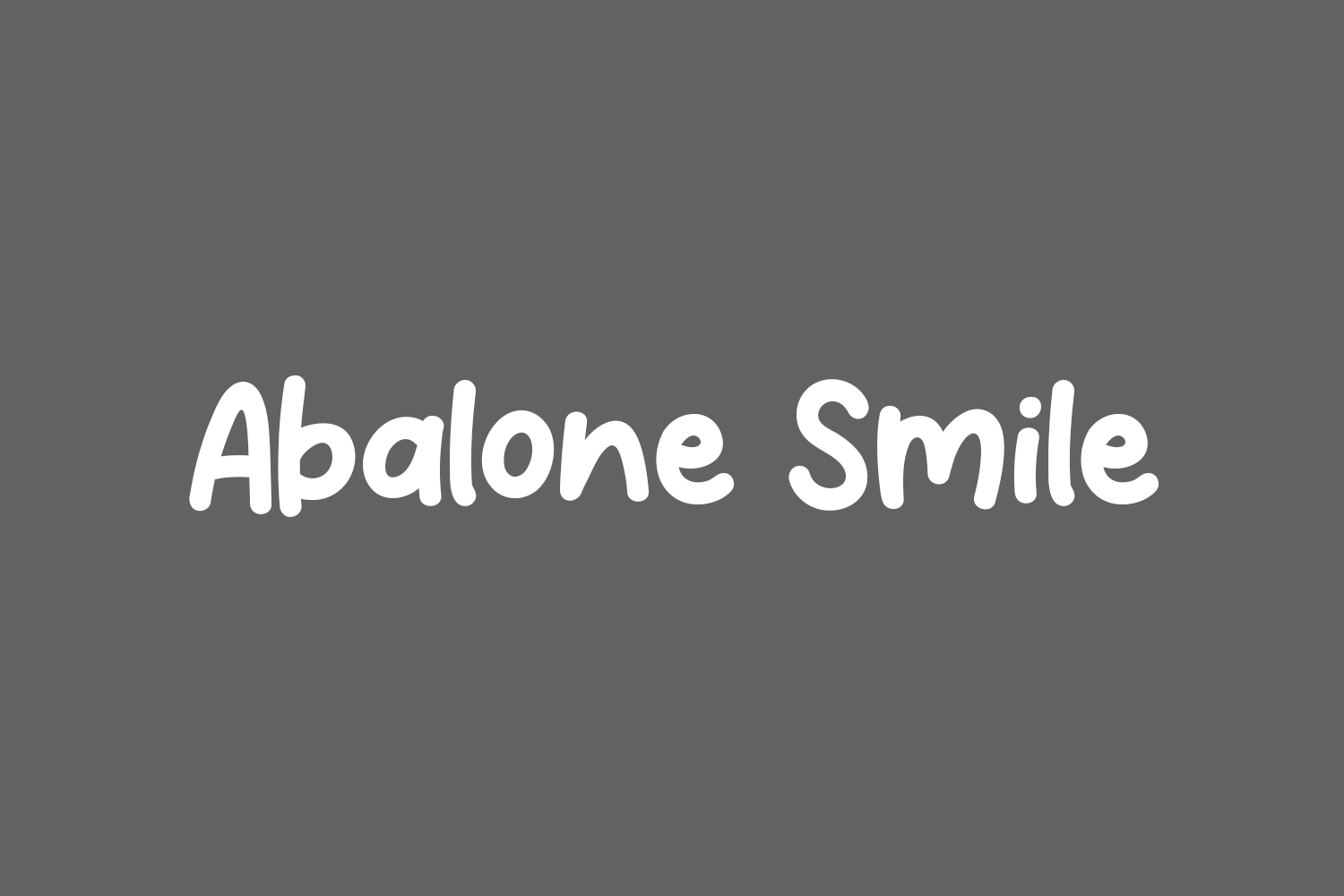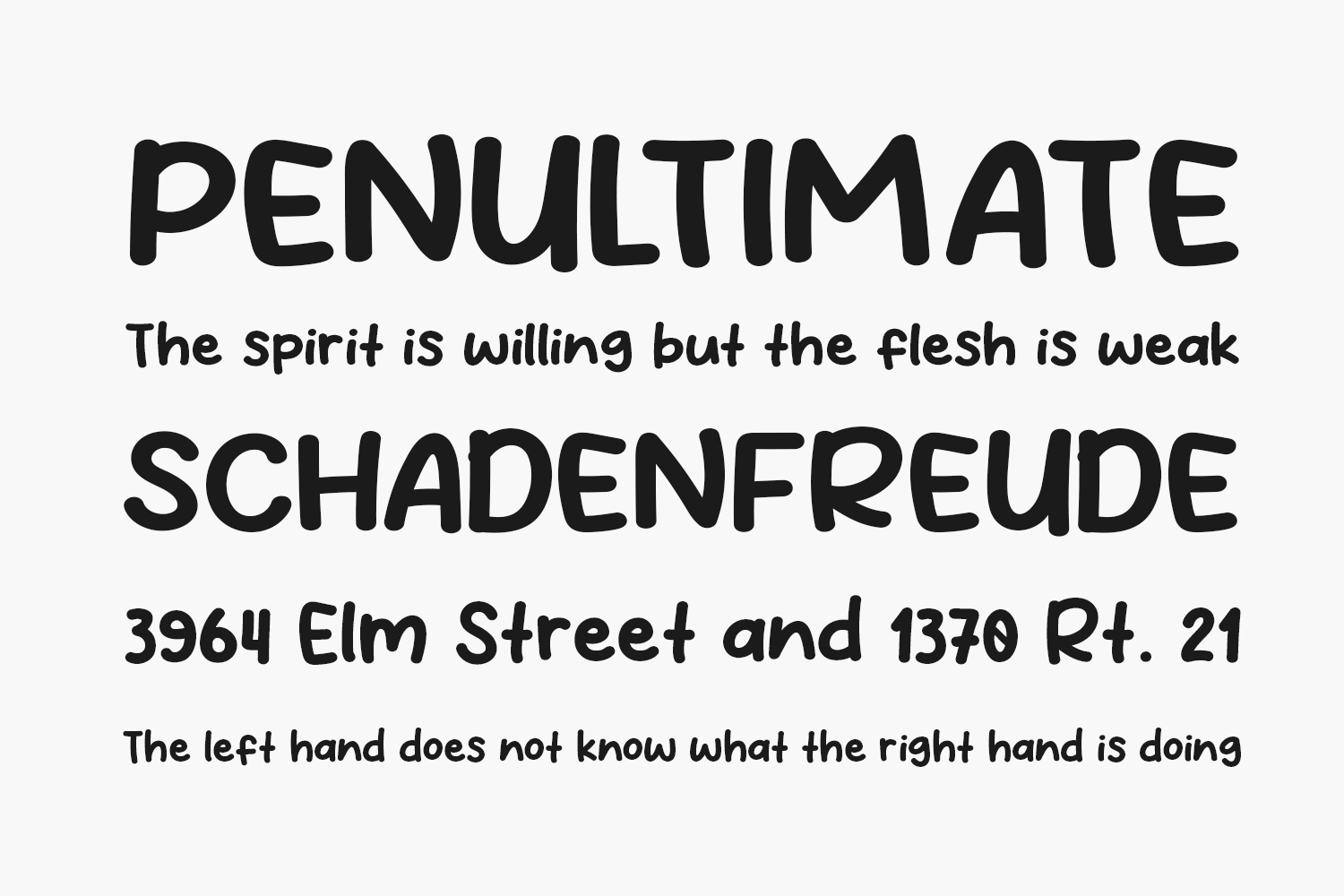
Abalone Smile Free Font is a fun display font. Whether you use it for cartoon-related designs, children’s games, or just any creation that requires a playful touch, this font is the perfect choice for your designs. Abalone Smile Free Font was designed by Khurasan and is free for personal use only. Please purchase the full version for commercial use.